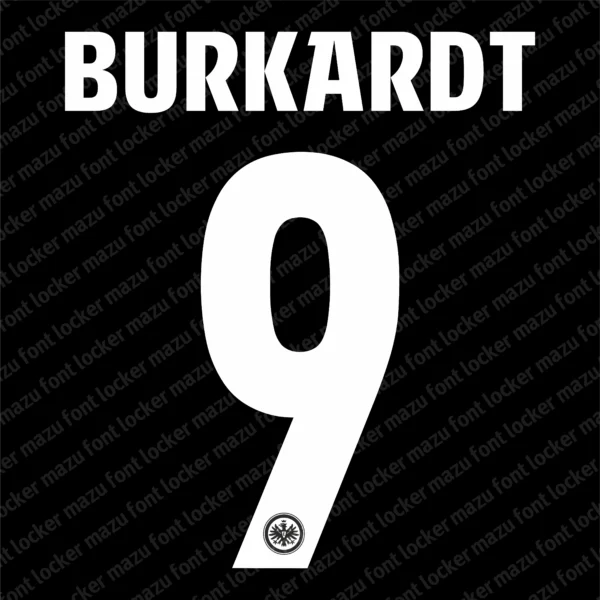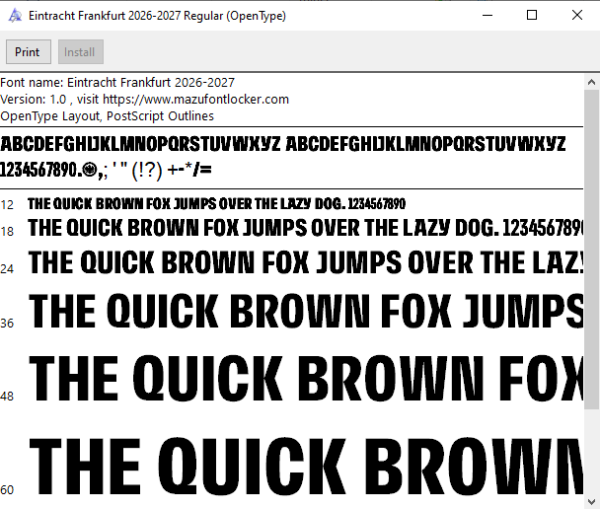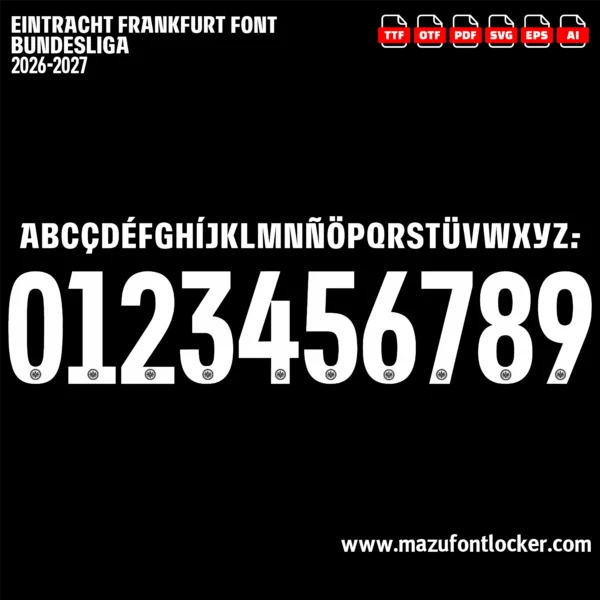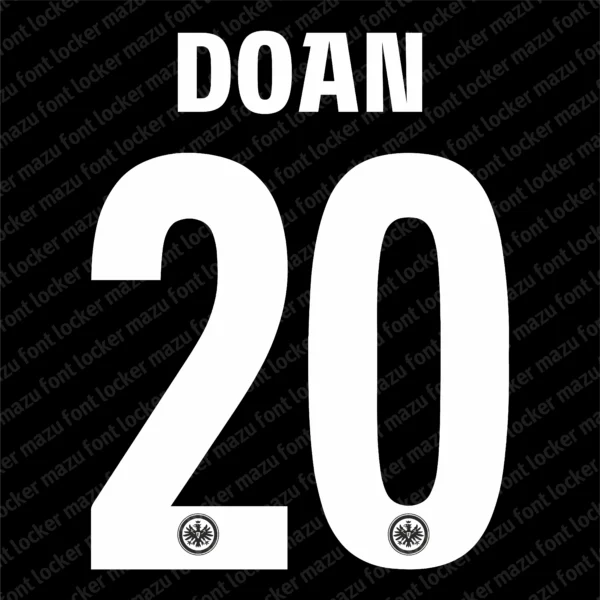
Eintracht Frankfurt 2026-2027 Font Vector – Epic Eagle Masterpiece
Download the Eintracht Frankfurt 2026-2027 Font Vector (AI, EPS, SVG, PDF, OTF, TTF) and unleash the bold, thunderous, and electrifying match typography that dominated the biggest stages across Germany and Europe during Eintracht Frankfurt’s historic 2026-2027 campaign. This font captures the commanding, iconic, fearless, and ultra-premium lettering that perfectly embodies the club’s legendary German heritage fused with the relentless Adler fighting spirit, delivering unmatched passion, explosive energy, fierce sophistication, and pure Eintracht fire for premium jersey mockups, football designs, epic sports visuals, dominating fan creations, and elite branding projects.
Eintracht Frankfurt 2026-2027 Font Vector – Authentic Eagles Typeface
The Eintracht Frankfurt 2026-2027 Font Vector is a premium typeface that accurately recreates the official match lettering worn by Eintracht Frankfurt during the 2026-2027 Bundesliga and European campaigns. This high-quality vector font kit captures the bold, modern, and dynamic typography that represents the pride, passion, and fighting spirit of Die Adler.
Designed for professional designers and passionate Eintracht fans, the Eintracht Frankfurt 2026-2027 Font Vector delivers perfect authenticity for creating realistic jersey mockups, fan merchandise, matchday posters, social media graphics, and German football content. It pairs beautifully with the iconic home kit featuring the classic black, red, and white colors.
Why Choose Eintracht Frankfurt 2026-2027 Font Vector
This font stands out because of its sharp vector precision and strong club identity. Every letter and number is crafted to match the exact style used on the players’ shirts during the 2026-2027 season. Whether you are making realistic kit templates or exciting Eintracht content, the Eintracht Frankfurt 2026-2027 Font Vector gives your designs that authentic Waldstadion look.
The letterforms in the Eintracht Frankfurt 2026-2027 Font Vector are tall, bold, and highly readable. The strokes have a strong, clean weight with excellent edge definition that looks powerful on the back of jerseys while maintaining classic German heritage and modern Bundesliga strength.
- Full uppercase A–Z and numbers 0–9 in authentic Eintracht Frankfurt 2026-2027 style
- Special Eintracht crest glyph – Press the “:” (colon) symbol to insert the Eintracht Frankfurt logo
- Multilingual Latin character support including diacritics (ü, ö, ä, ß)
- Includes the exact crest glyph placement used under player numbers
The Eintracht Frankfurt 2026-2027 Font Vector is an independently designed typeface package. It is carefully crafted to replicate the official shirt lettering style of the 2026-2027 season. This font kit is perfect for creative projects, fan edits, nostalgic jersey designs, and custom football graphics.